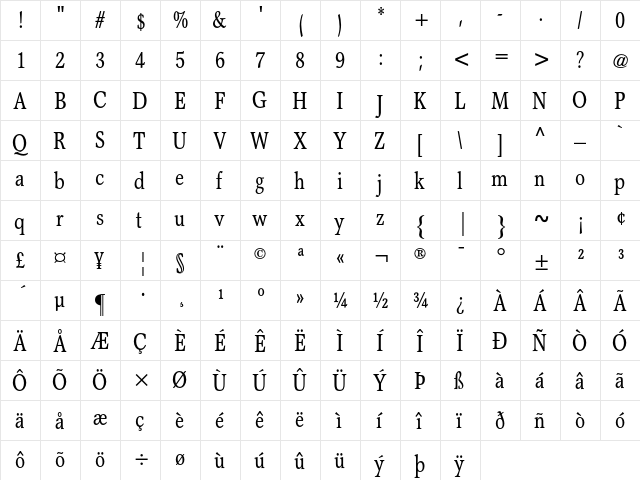
Garth Graphic AT Cond Regular Font Preview
Garth Graphic AT Cond Regular
Garth Graphic AT Cond Regular Font Details
Design Context for Garth Graphic AT Cond Typeface
Garth Graphic AT Cond takes a measured approach to typography — its balanced proportions and neutral character make it a reliable workhorse for both digital and print work. Its narrow stance lets it pack a punch even in space-constrained designs.
Pro Tip: Use Garth Graphic AT Cond in both headline and body roles to test its range before committing to a single application.